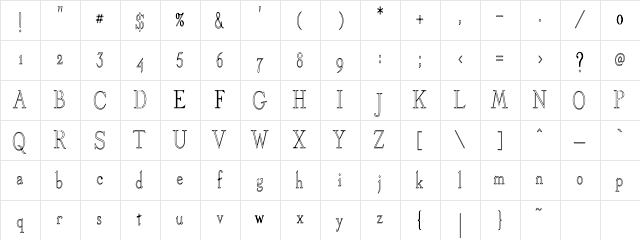
DickensHC Regular
Design Context for DickensHC
DickensHC is a composed and adaptable typeface that performs quietly and consistently across a wide range of design contexts.